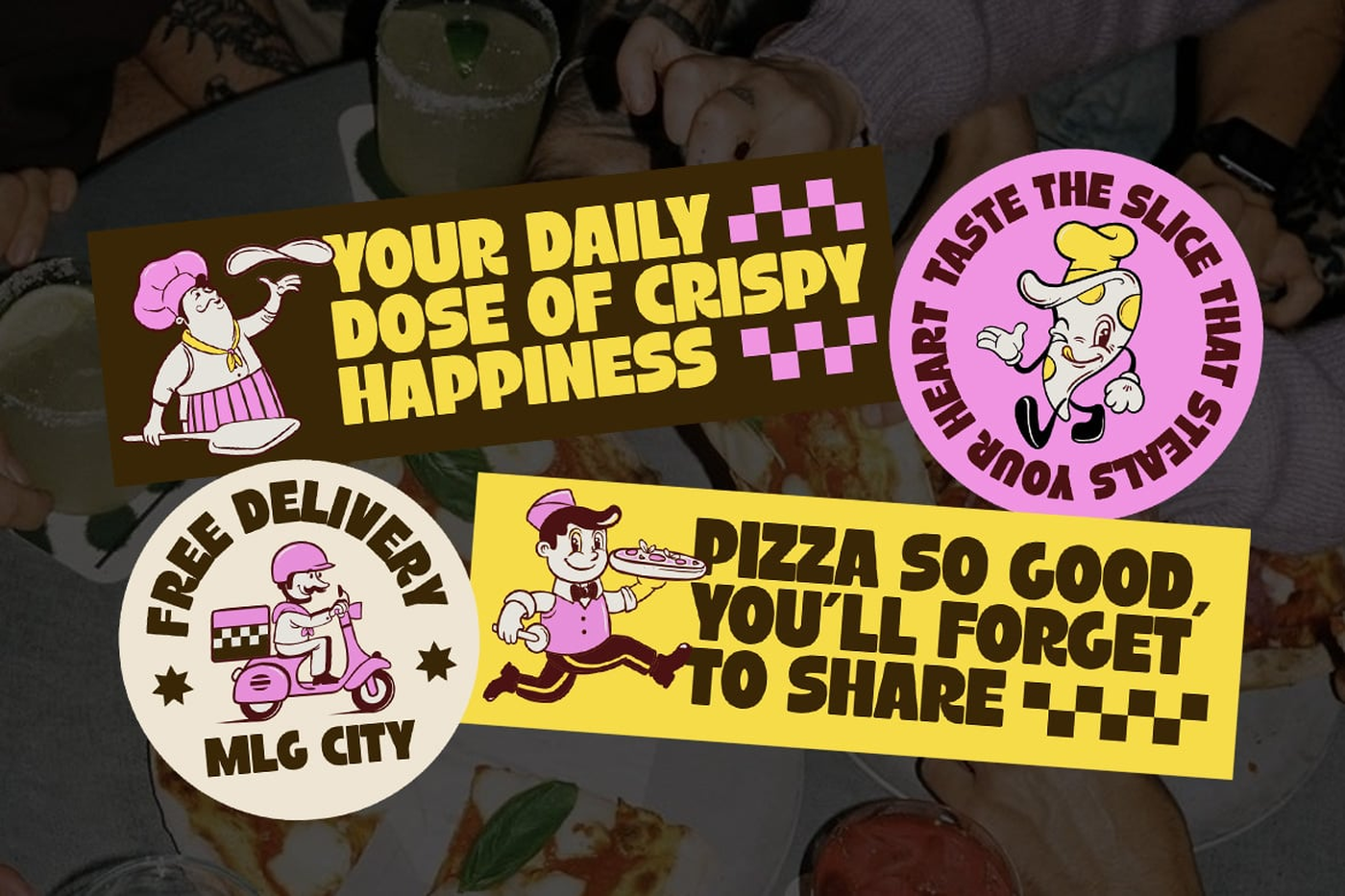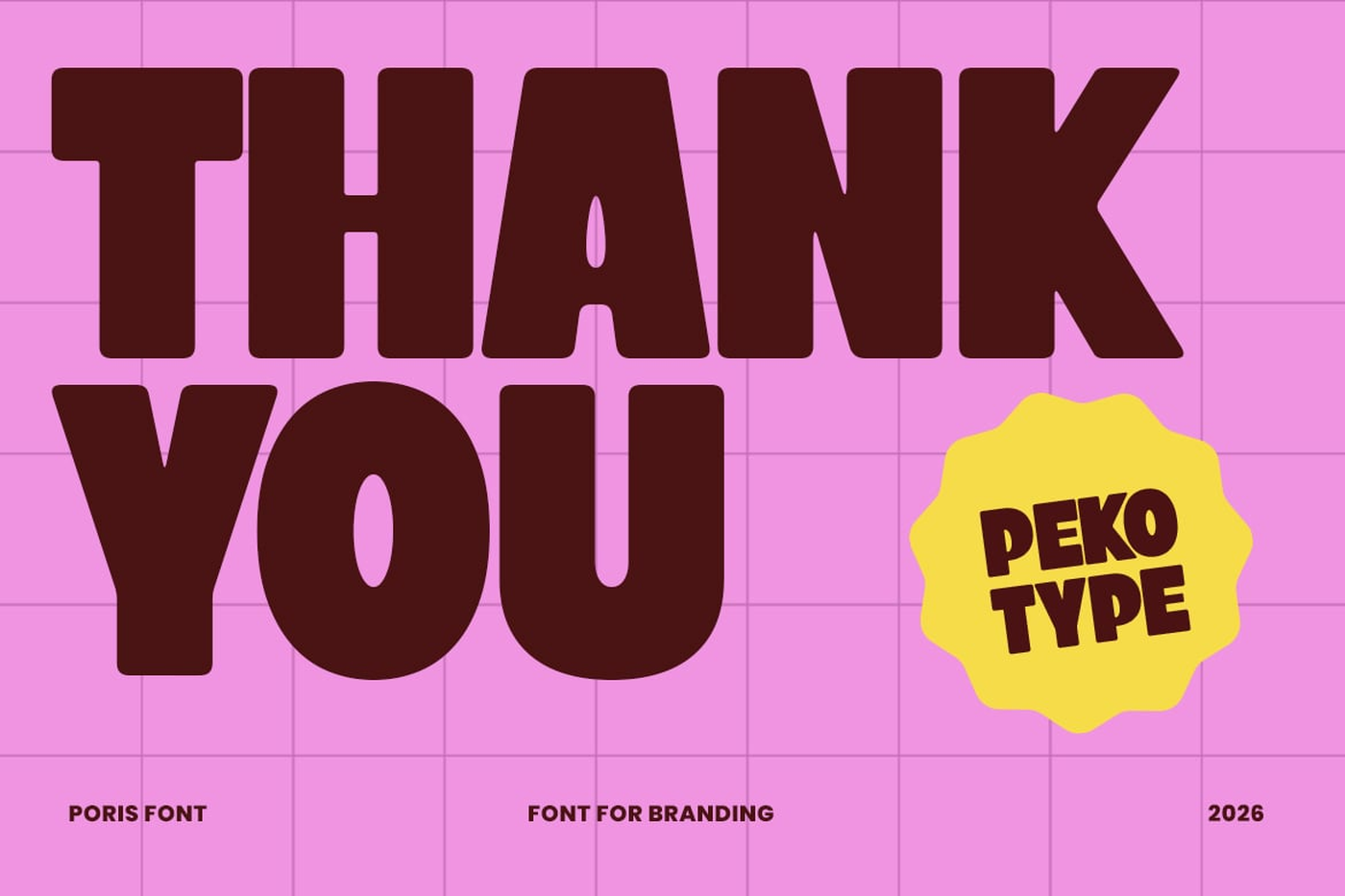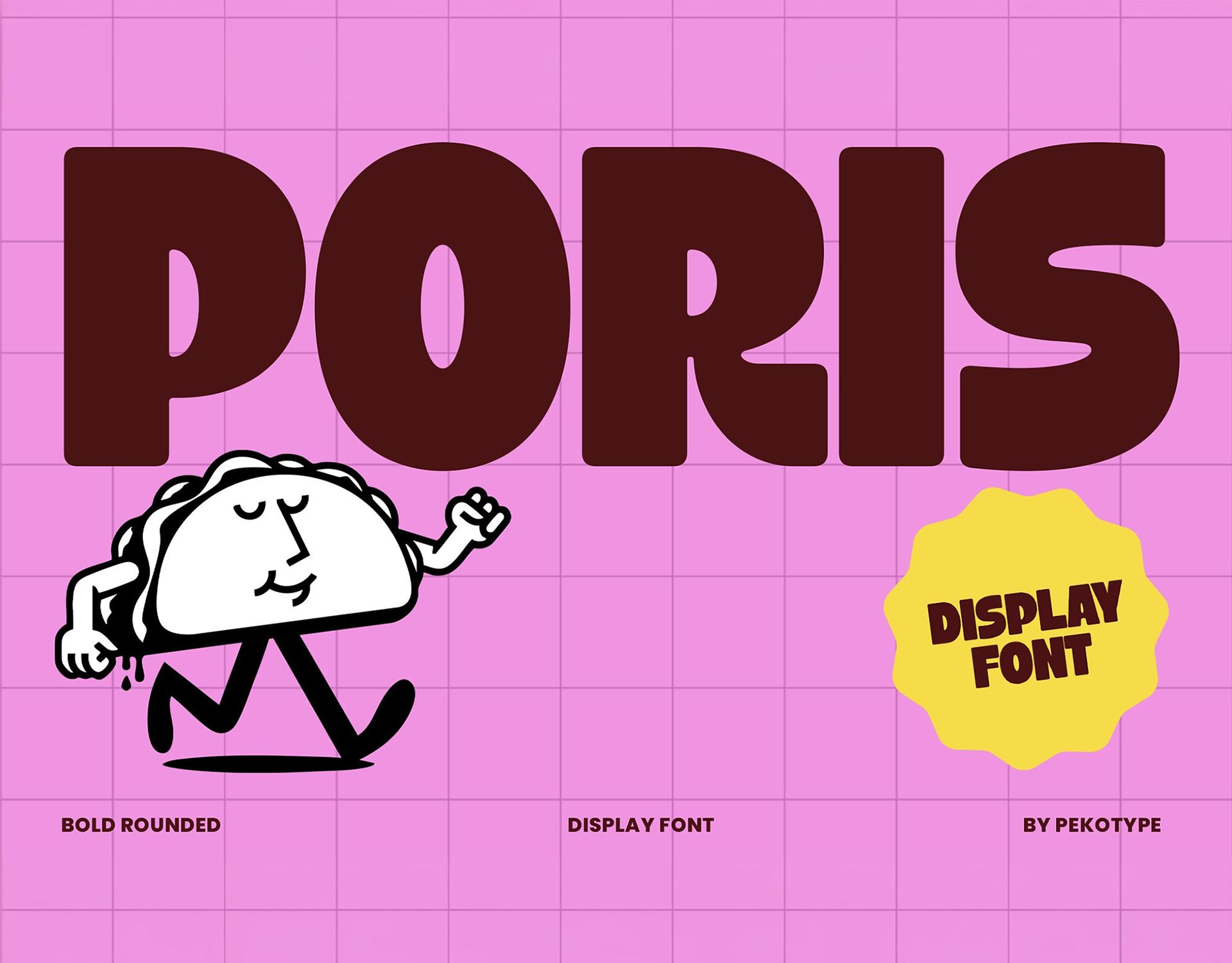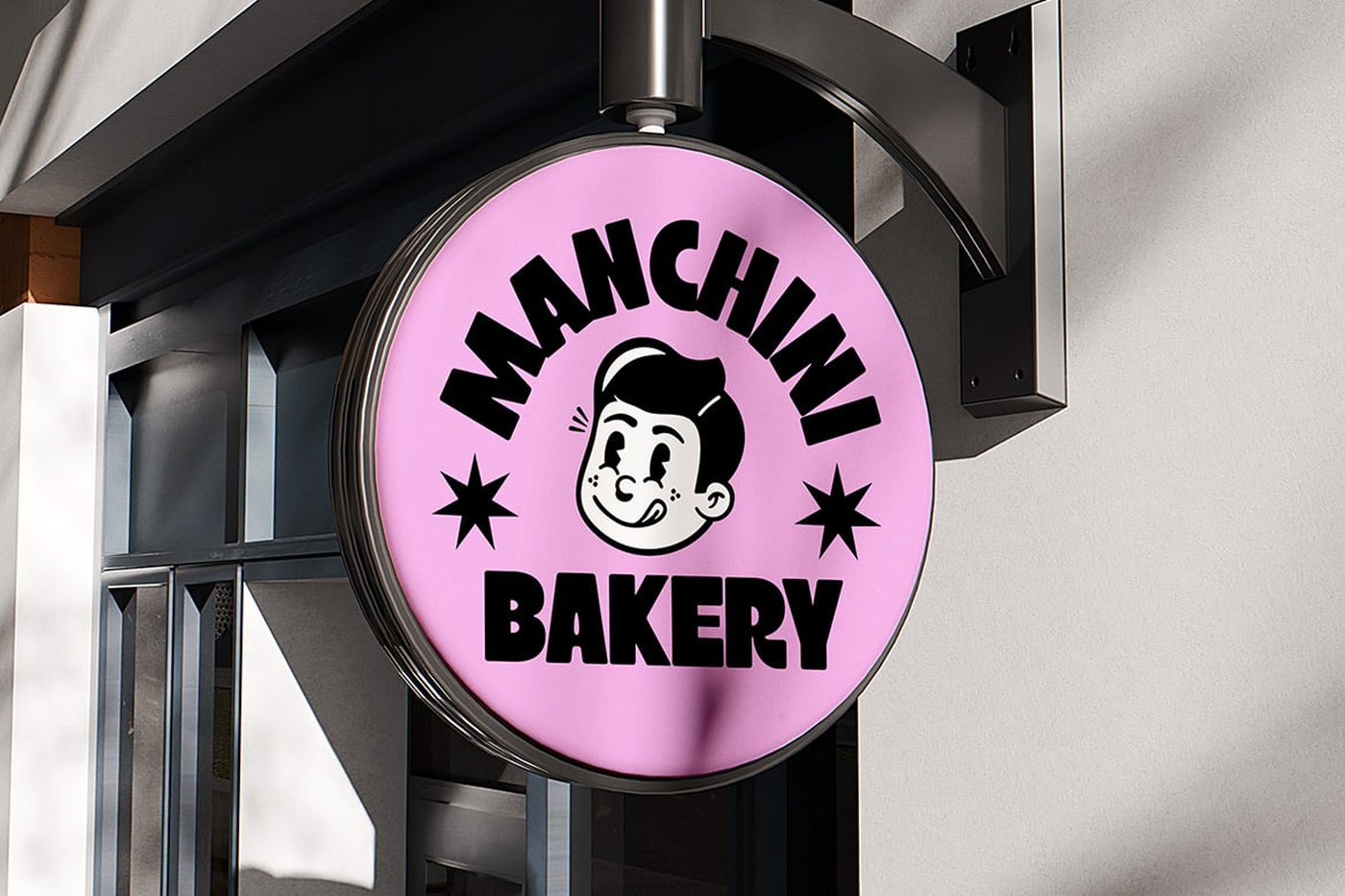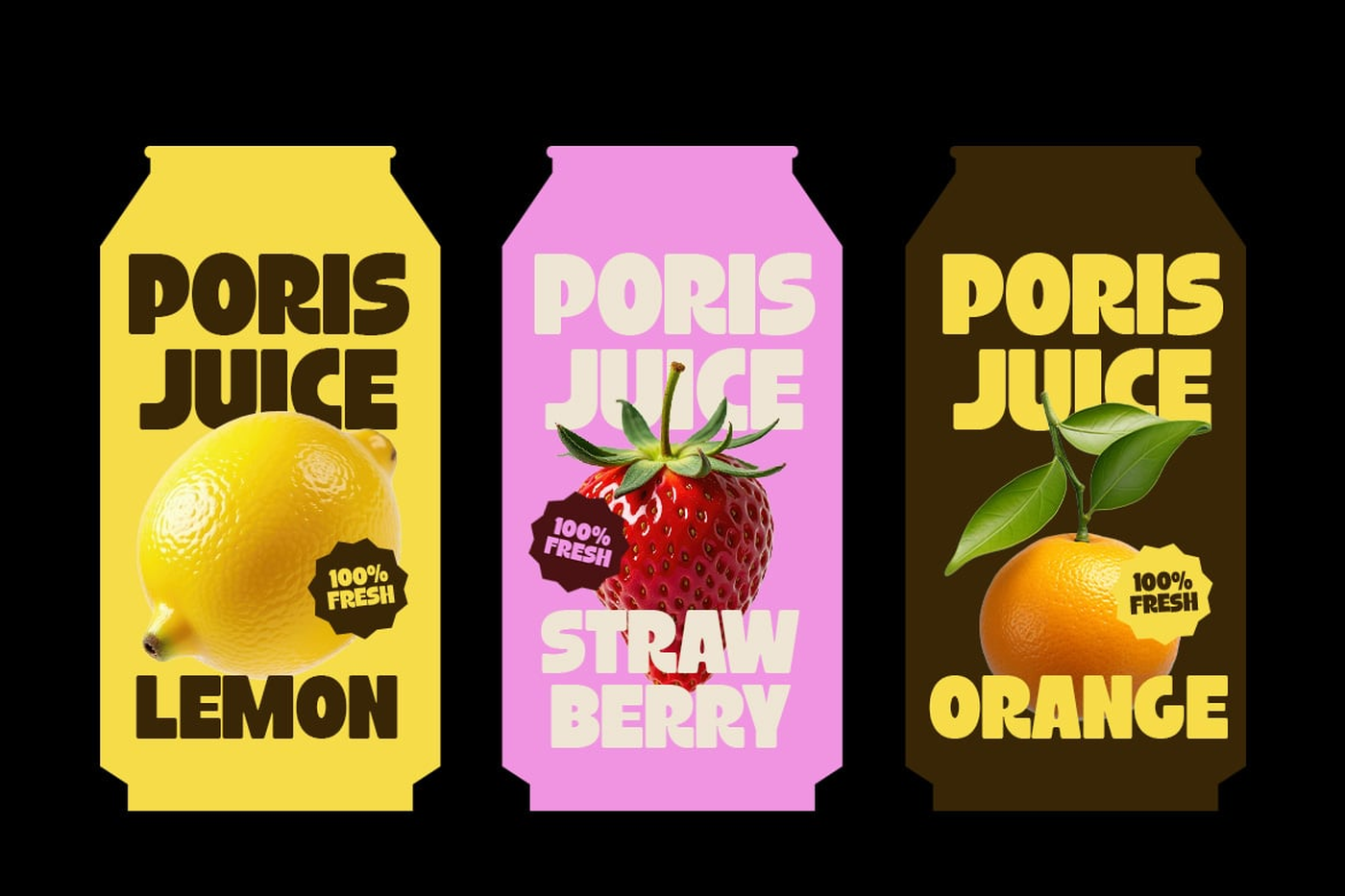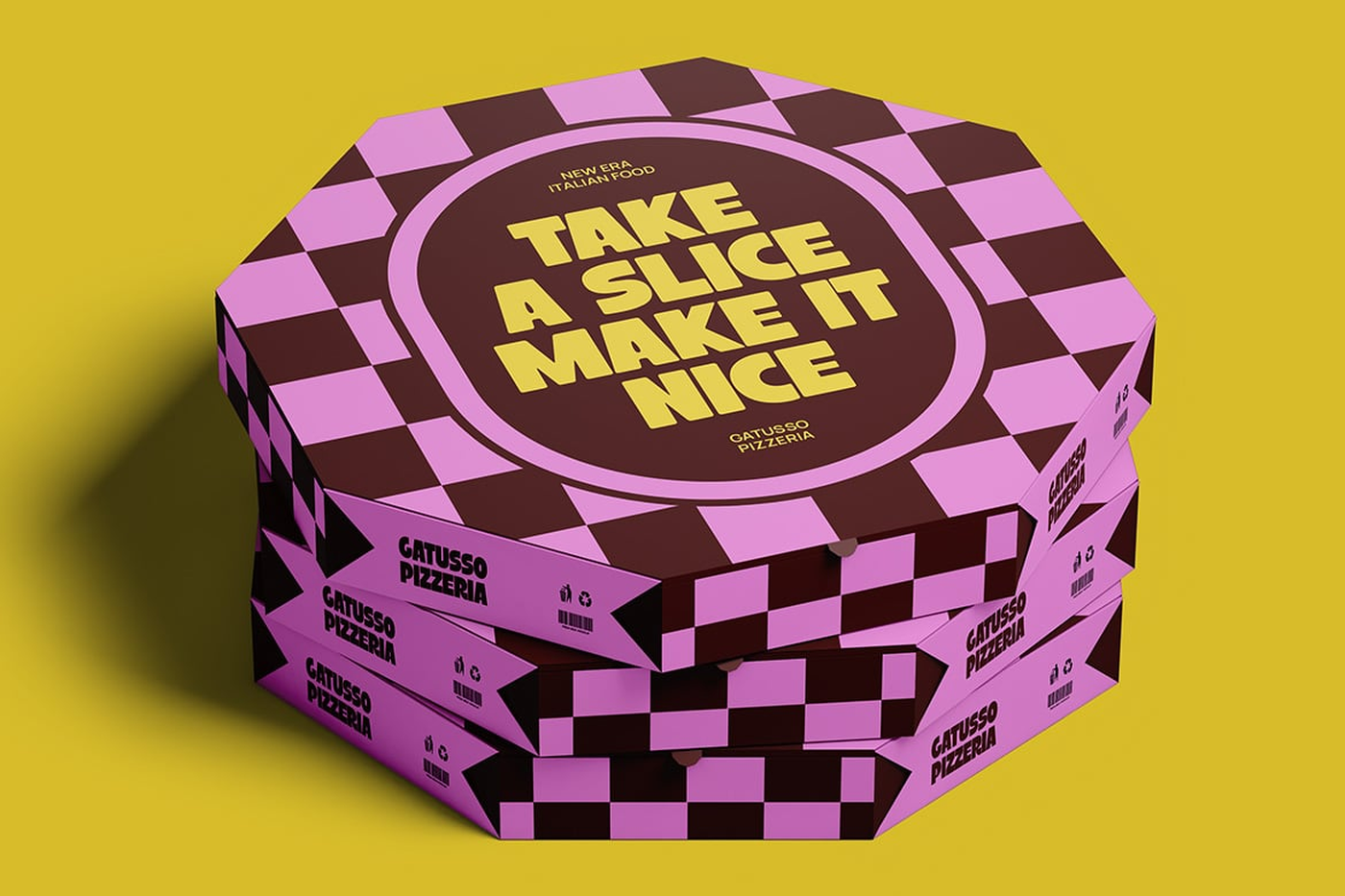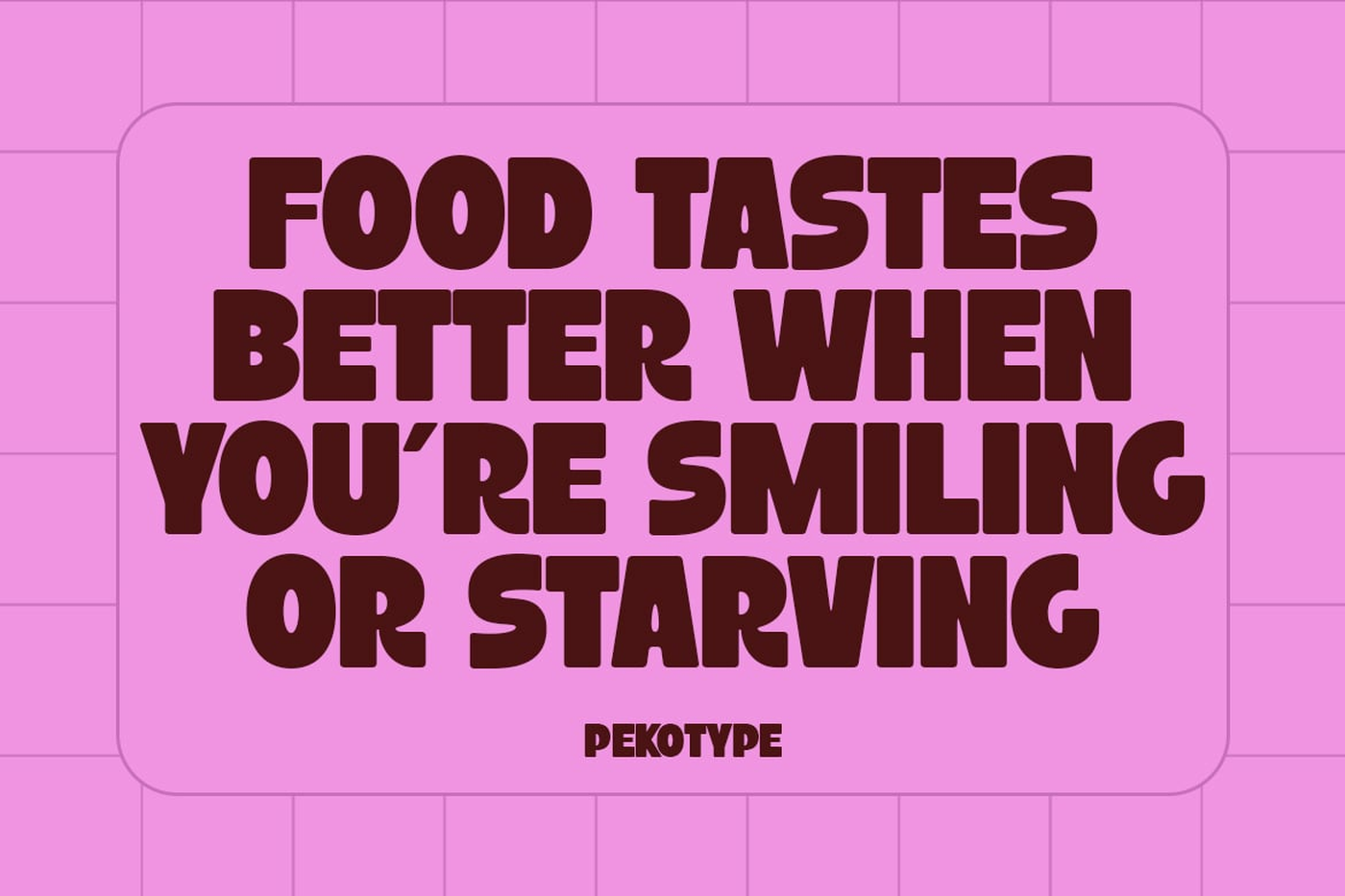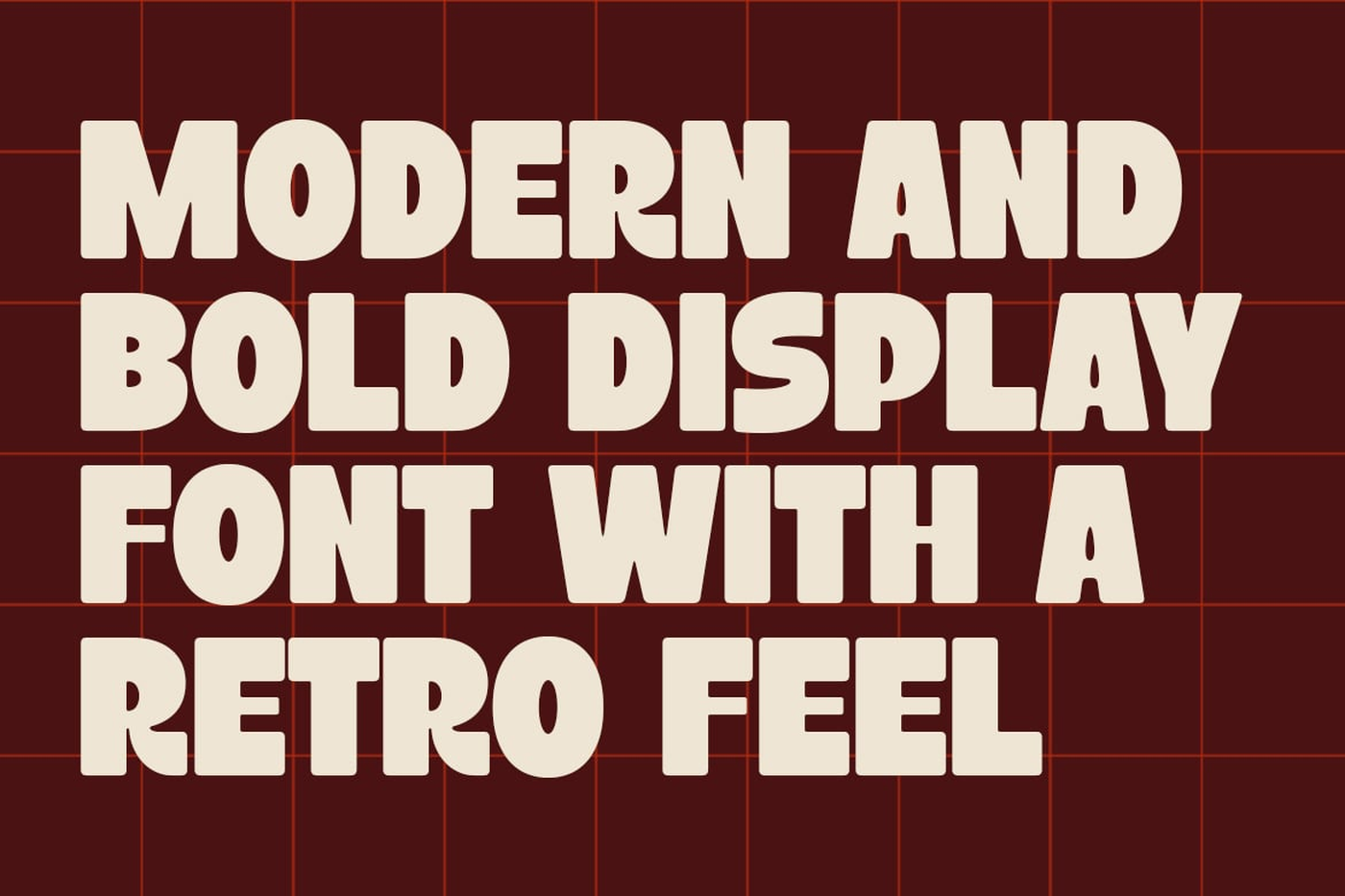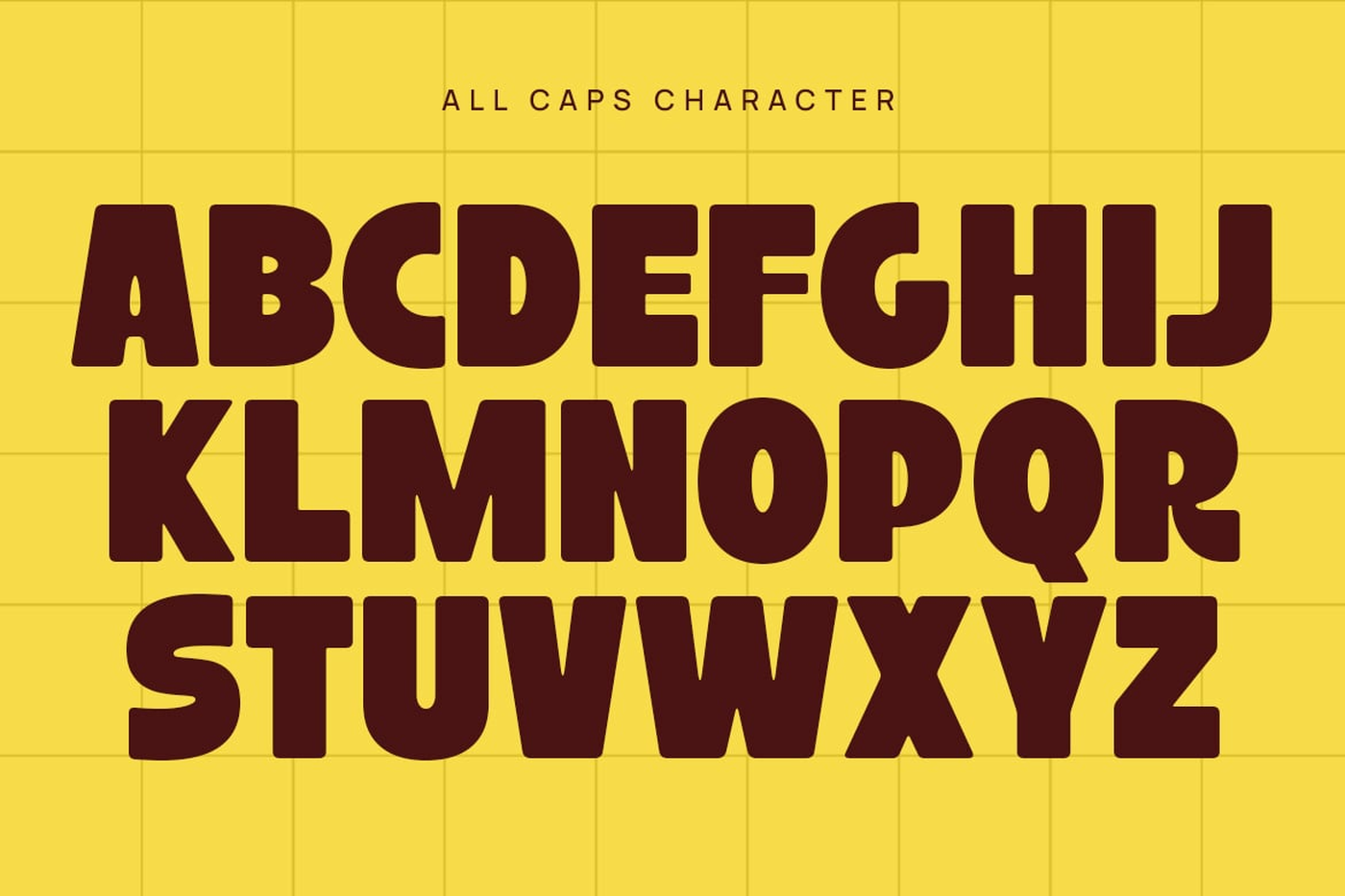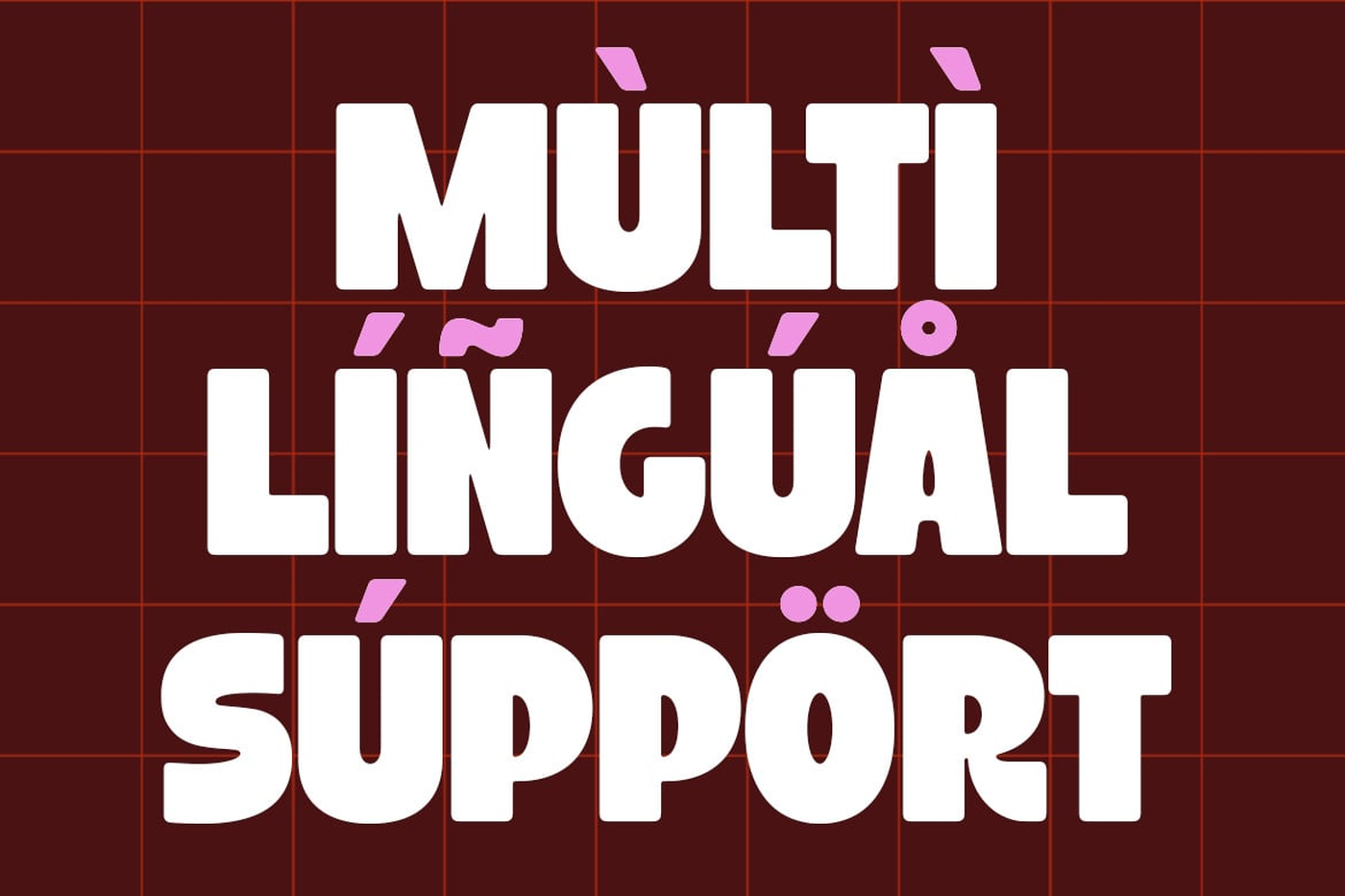
PORIS - Modern Bold Display Font
PORIS is a modern and bold all caps display typeface with a strong retro vibe. Designed to be loud, playful, and full of personality, PORIS features chunky letterforms and smooth curves that instantly grab attention. Its bold construction makes every word feel powerful, fun, and highly memorable. As an all caps font with multilingual support, PORIS is perfect for impactful headlines and branding that demand strong visual presence. It works beautifully for logos, branding, packaging, posters, marketing campaigns, social media content, food and beverage design, merchandise, and promotional materials.